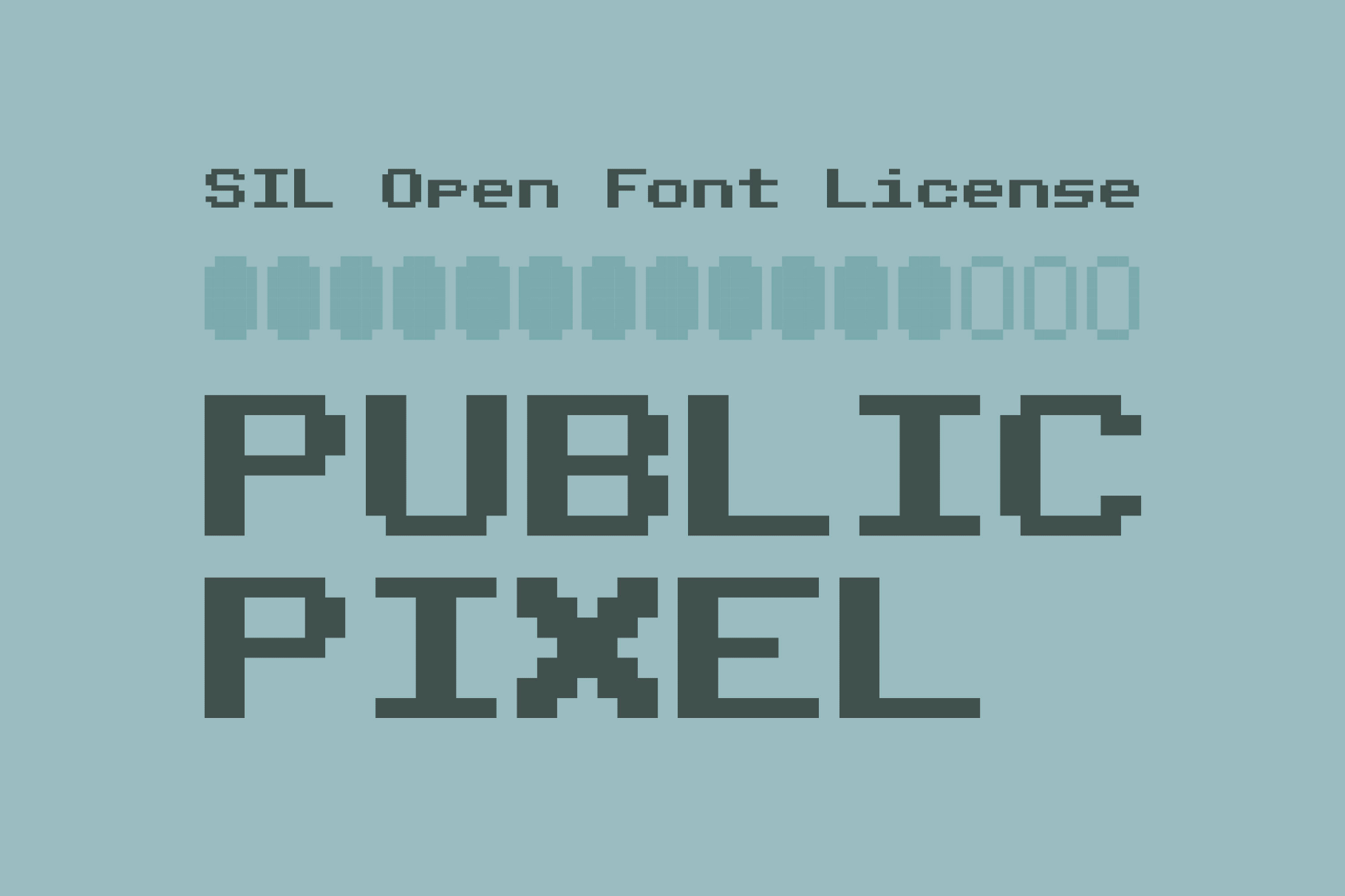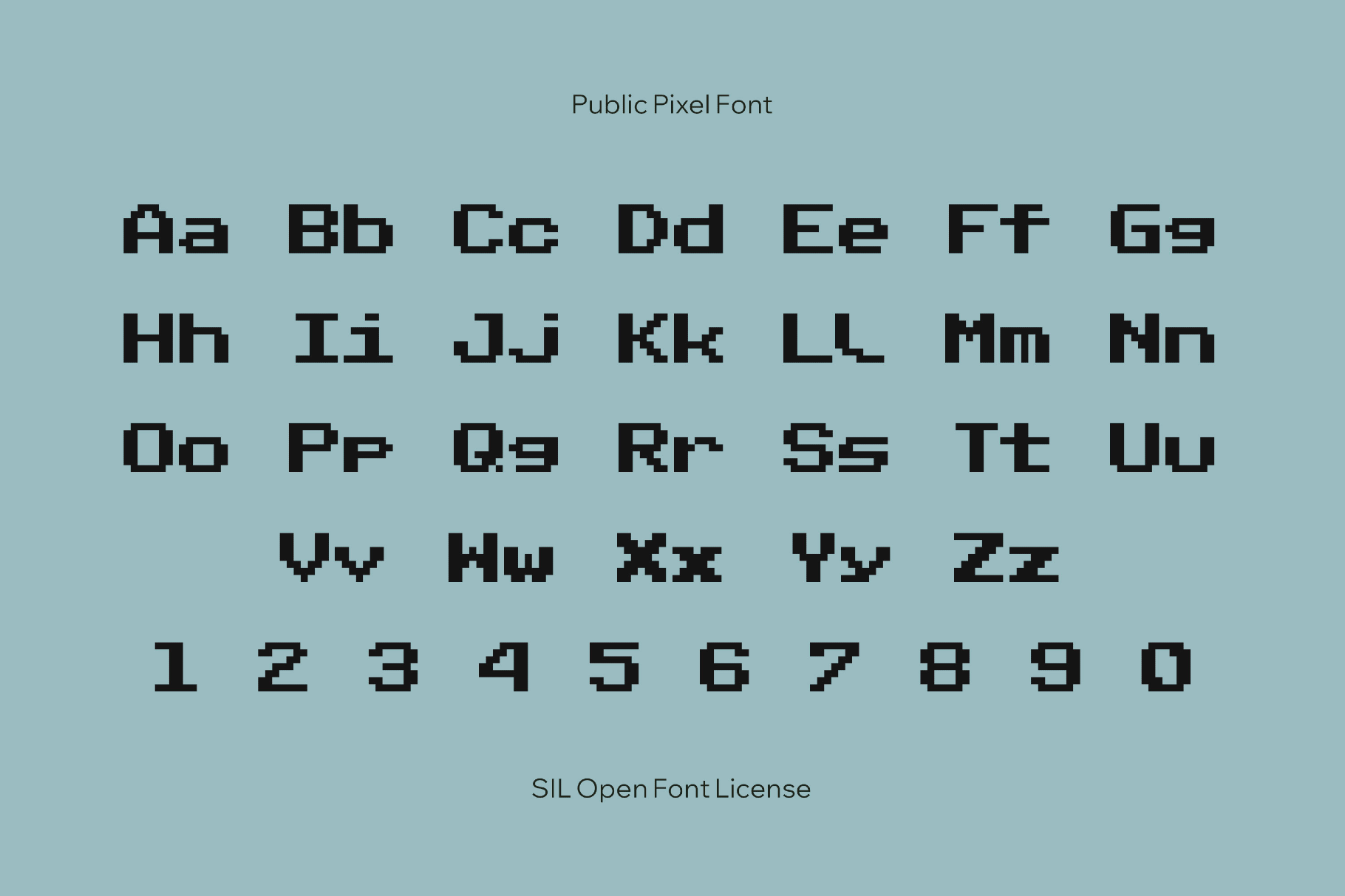
Public Pixel Font
PublicPixel
Public Pixel is built from chunky screen blocks and deliberately awkward diagonals, like game console text blown up on a CRT. The characters use square proportions and sharp corners, so UI labels, code snippets, and score readouts share the same clean, low-resolution structure. It's also perfect for pixel art posters, stream overlays, zines about hardware culture, and labels for DIY electronics.
- Uppercase and lowercase letters, numbers, punctuation, symbols, international characters, extended mathematical symbols, and metrics.
- Multilingual support across extended Latin, Cyrillic, Hebrew, and Greek scripts.